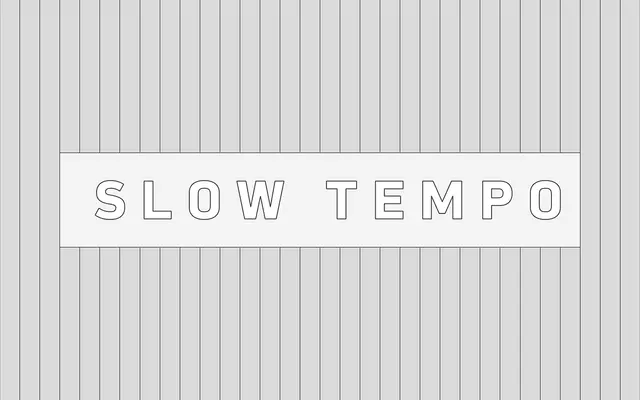
Slow Tempo
A low-contrast humanist sans with geometric construction, open apertures and eight weights with matching italics for body text and display use.
Gentle curves at stem intersections and large open apertures give the typeface a calm, airy quality that sets it apart from strictly geometric neutrals. The large x-height and humanistic terminals support legibility across a range of sizes, from running text to headings. Language coverage spans Latin-based scripts and basic Cyrillic, making it broadly usable across international projects.
Low contrast letterforms with geometric construction and humanistic terminals place this firmly in the humanist sans category, with open apertures and a clean skeletal structure typical of the style.